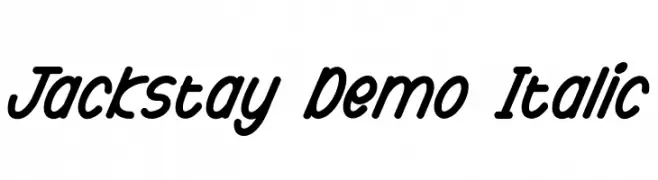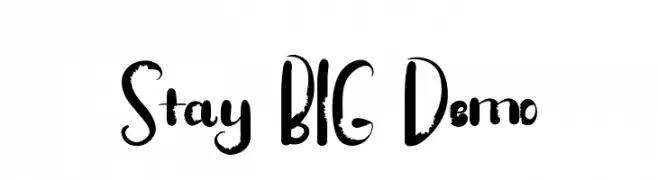
A bold, energetic script font with a dynamic, handwritten style.
A bold, distressed font with a vintage, industrial feel.
A playful, rounded font with bold, smooth curves and consistent design.
A bold, italicized script font with a modern and dynamic style.
A playful, modern outline font with bold, rounded letterforms.
An elegant script font with flowing, interconnected letters and intricate flourishes.
A bold, brush-style font with dynamic strokes and artistic flair.
A whimsical, handwritten-style font with flowing, decorative strokes.
A bold, brush-style font with an energetic and handcrafted appearance.
A playful, handwritten script font with flowing, connected letters.